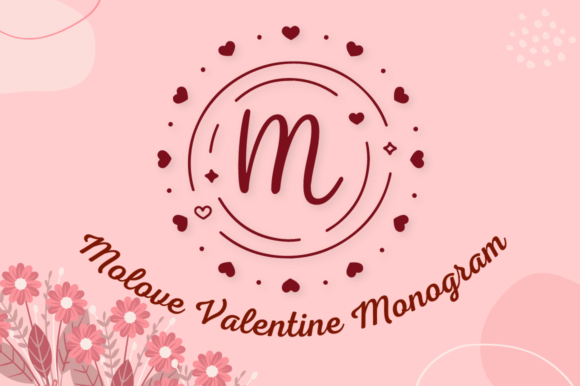
Journey into the realm of love and heartfelt expression with Molove Valentine Monogram, the exquisite decorative font that will add a touch of enchantment to your creative endeavors. This captivating font family, meticulously crafted by attypestudio, is adorned with intricate details and whimsical charm, making it the perfect companion for spreading joy and warmth through your designs.
With Molove Valentine Monogram, the possibilities are endless. Let your imagination soar as you create enchanting Valentine's Day cards, heartfelt wedding invitations, personalized logos that exude romance, and social media posts that radiate love and affection. This versatile font is also ideal for crafting eye-catching marketing materials, alluring business designs, and any project where you desire a touch of elegance and charm.
As you type in Molove Valentine Monogram, witness the magical transformation of letters into captivating works of art. Simply switch between uppercase and lowercase to unveil two distinct styles, each possessing its own unique flair. The uppercase letters burst forth in a jubilant dance of hearts, while the lowercase letters embrace a more delicate and graceful demeanor, adorned with delicate flourishes and playful accents.
For those seeking a font that captures the essence of love and happiness, Molove Valentine Monogram stands as the ultimate choice. Its enchanting aura will infuse your designs with a sense of joy and festivity, leaving a lasting impression on your audience. Whether you're a seasoned designer or just starting your creative journey, this font will empower you to express your heartfelt emotions and make a statement that resonates with others.
Embrace the magic of Molove Valentine Monogram today and embark on a creative adventure filled with love, joy, and endless possibilities. Let your designs blossom with romance, and witness the transformative power of this exquisite font as it adds a touch of enchantment to every project you undertake.